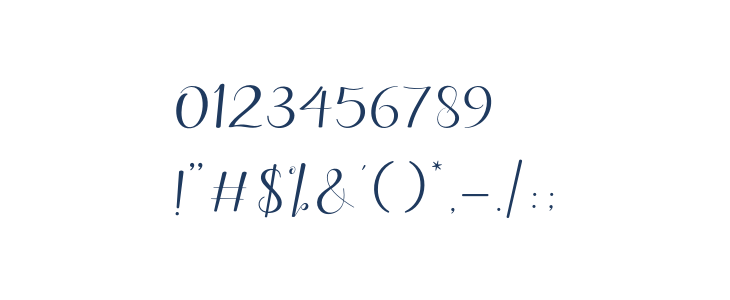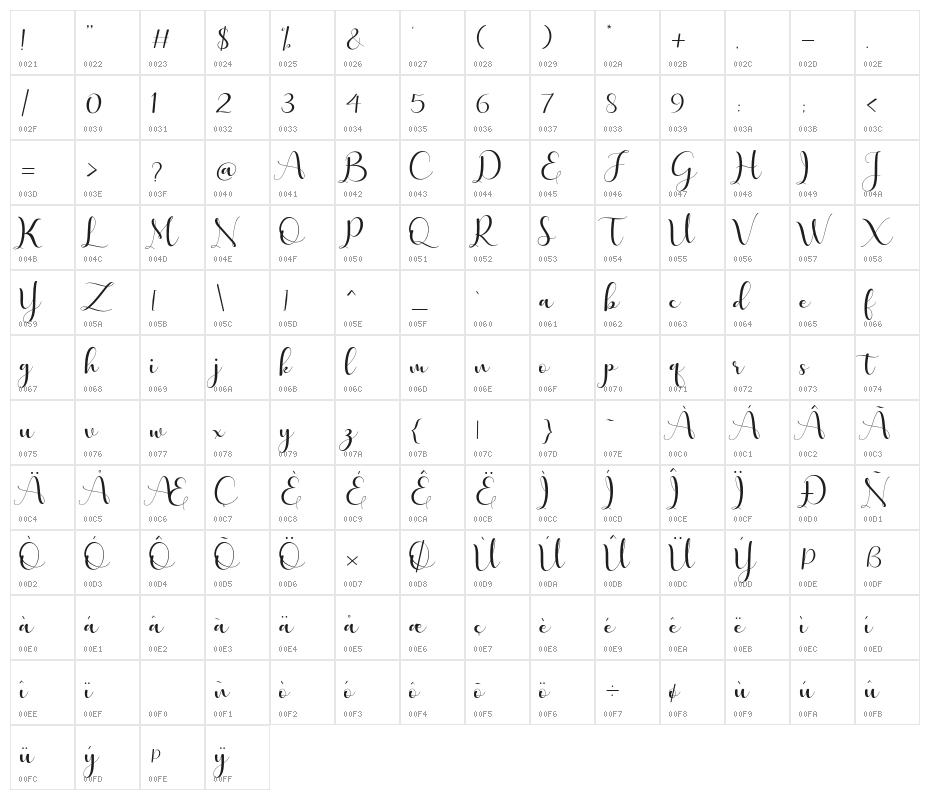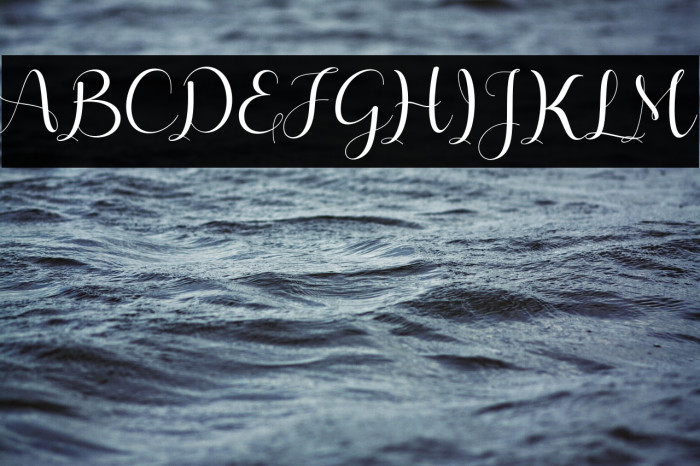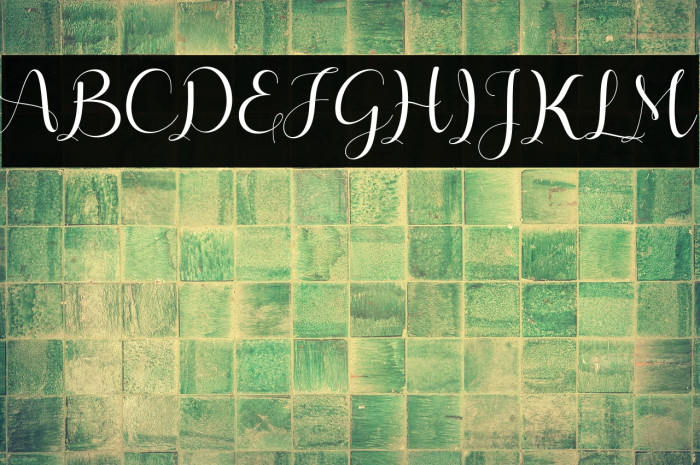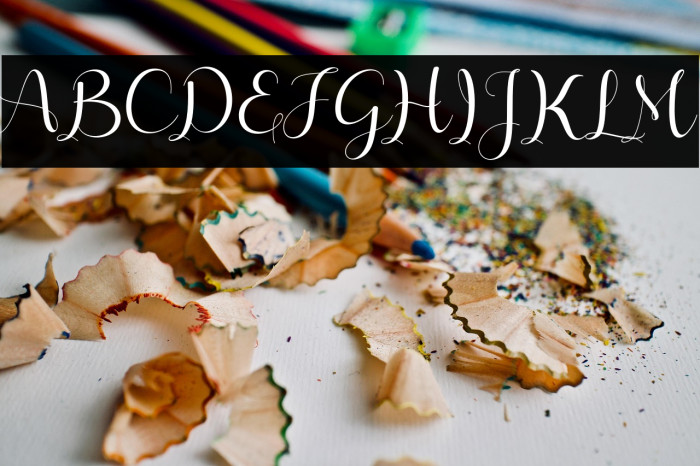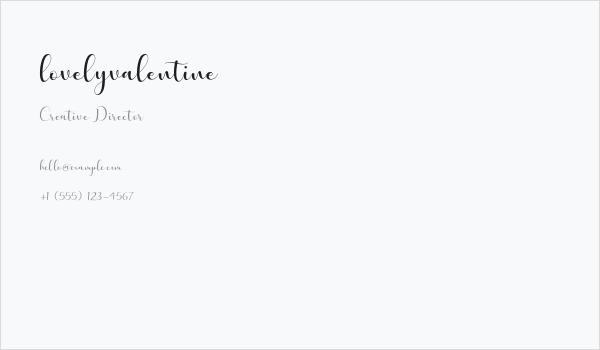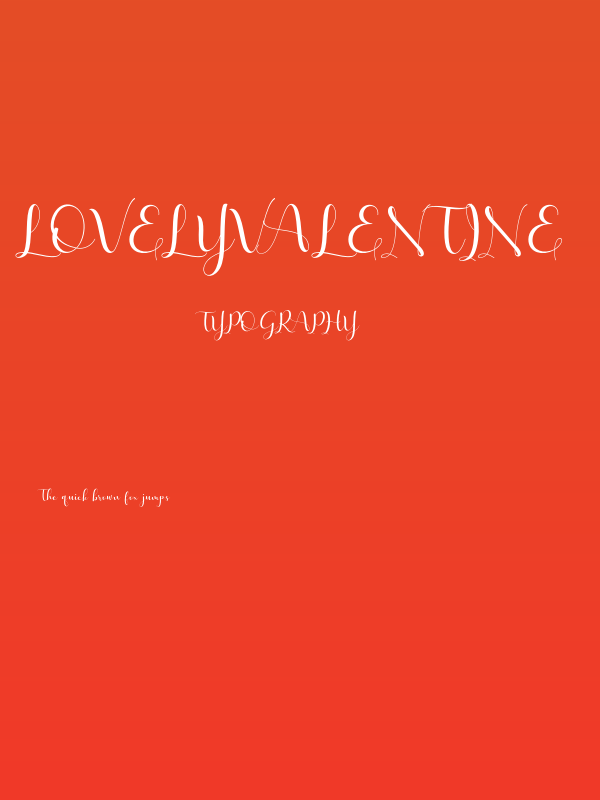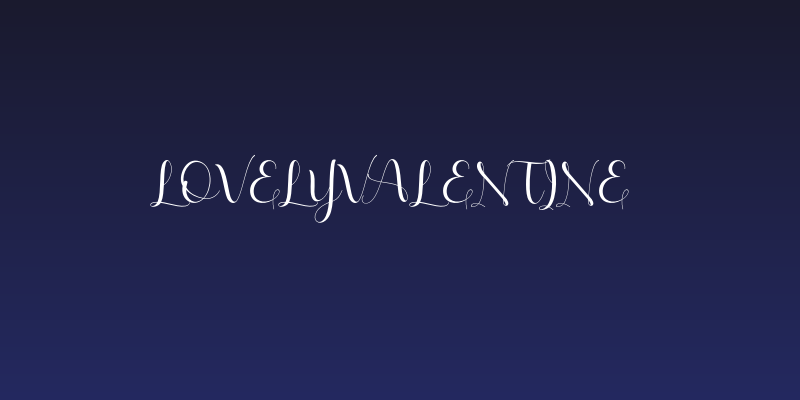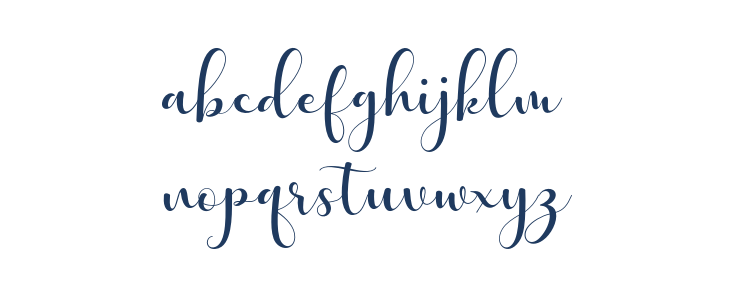
lovelyvalentine Font
lovelyvalentine Description
This elegant script font features a flowing, cursive style with delicate, sweeping strokes that create a sense of romance and sophistication. The uppercase letters are characterized by their intricate loops and flourishes, while the lowercase letters maintain a consistent, graceful flow. The numerals and special characters complement the overall aesthetic with their refined curves and balanced proportions. This font exudes a sense of elegance and charm, making it ideal for projects that require a touch of class and beauty.
| Overall Style | Romantic, Elegant |
| Use Case | Headlines, Invitations, Branding |
| Proposed Projects | Ideal for wedding invitations, greeting cards, branding, and elegant packaging designs. |